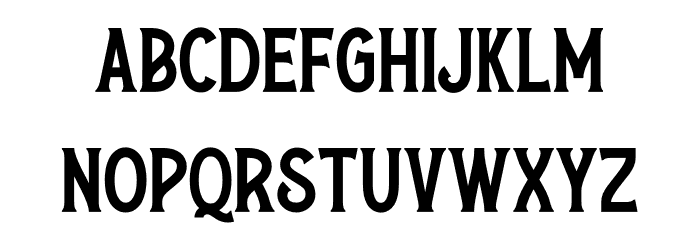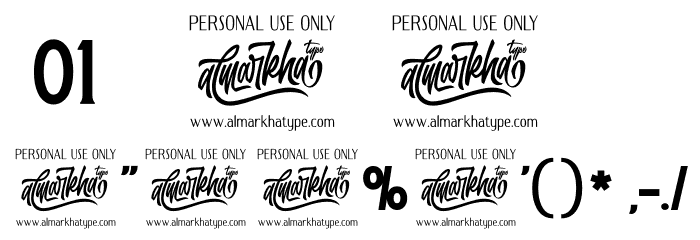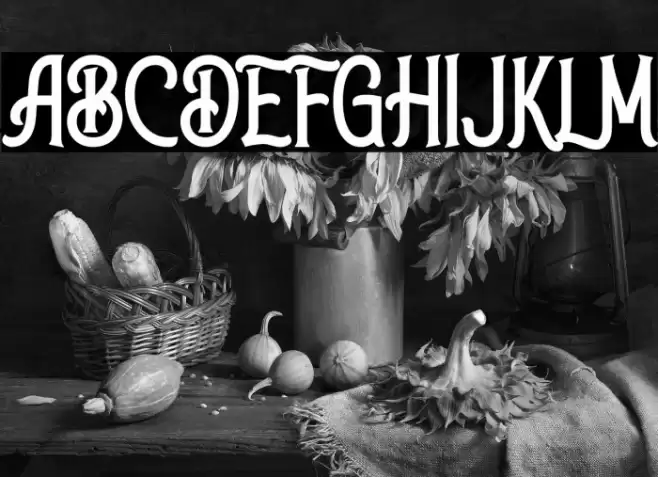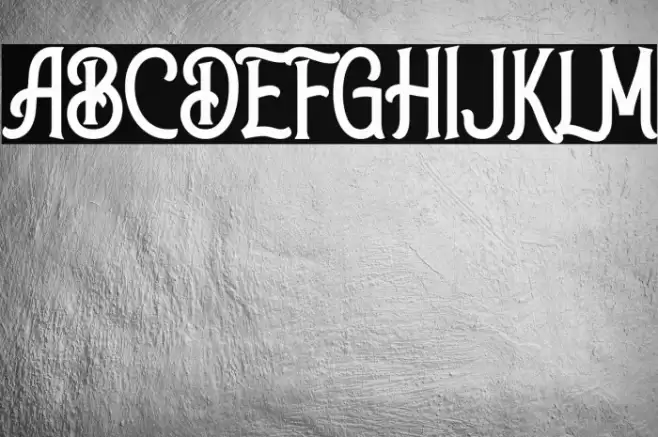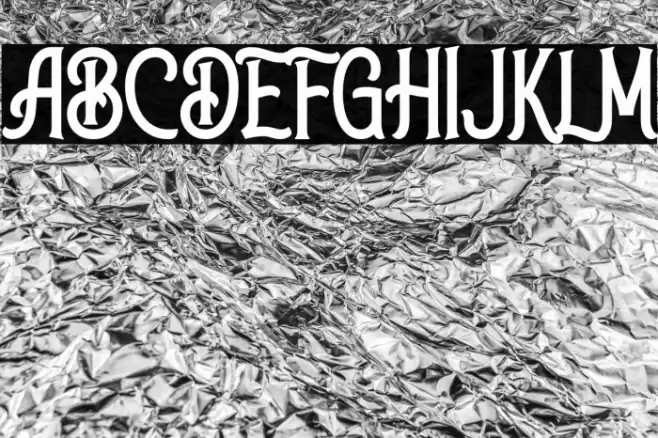
Walker Knight Font
This font features a bold and decorative style with a unique flair. The uppercase letters have a whimsical, almost playful quality, with exaggerated curves and strokes that give them a distinctive appearance. The lowercase letters maintain a more traditional form but still carry the decorative elements seen in the uppercase set. The numbers are bold and clear, ensuring readability. Special characters are creatively designed, adding to the font's overall charm. This font is ideal for projects that require a touch of personality and creativity.
A bold, decorative font with whimsical uppercase letters and clear, traditional lowercase forms.
- Proposed Projects: Ideal for branding, posters, invitations, and any creative design projects that require a unique and eye-catching typeface.